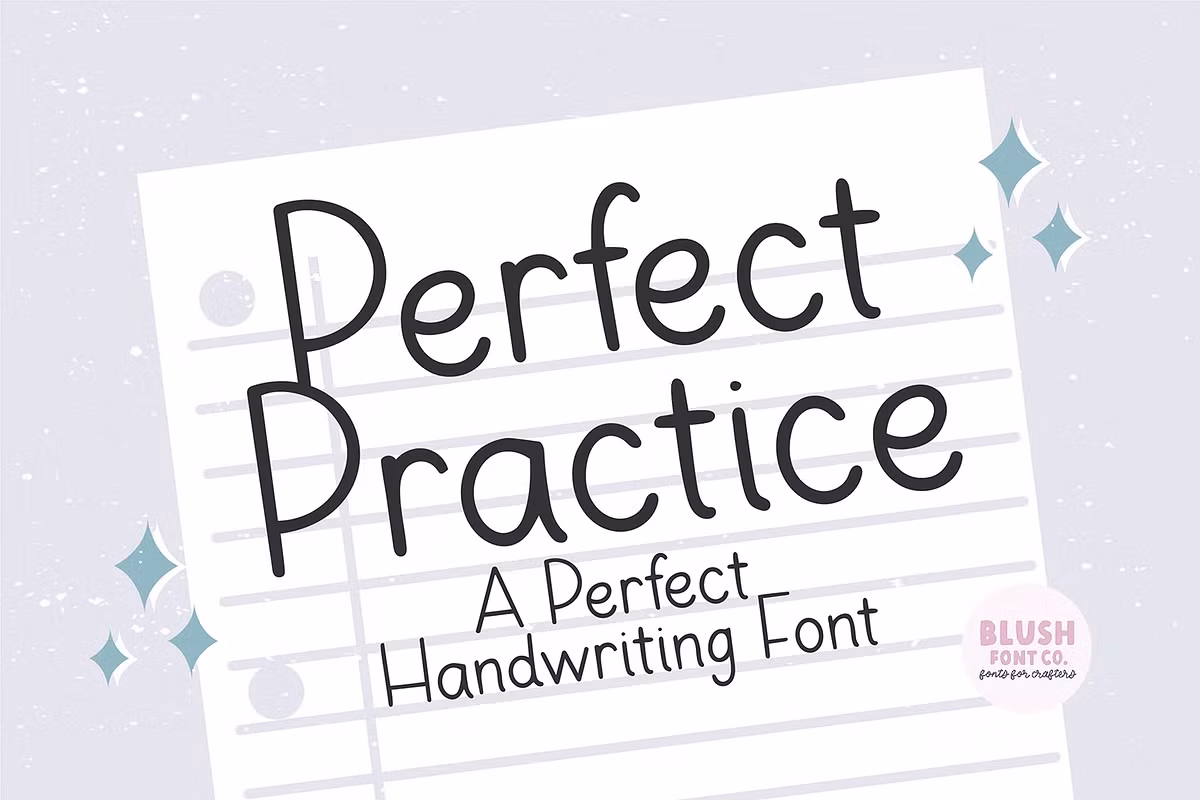
Perfect Practice Font Free Download is a clean, natural-looking handwriting font designed to replicate neat, legible penmanship. With its balanced spacing, smooth lines, and realistic strokes, Perfect Practice is ideal for educational materials, worksheets, personal notes, planners, journals, and branding that aims for a human and approachable feel.
Whether you're designing classroom resources or creating a brand that wants to feel friendly and authentic, Perfect Practice Font Free Download delivers clarity and charm in every letter. Its simplicity makes it highly readable, while its hand-crafted style adds warmth and sincerity to your work.
Perfect Practice pairs well with clean sans-serif or serif fonts for professional layouts, and works beautifully on both digital and print projects. It’s especially great for teachers, creators, and designers who want to bring a handwritten touch to their visuals.